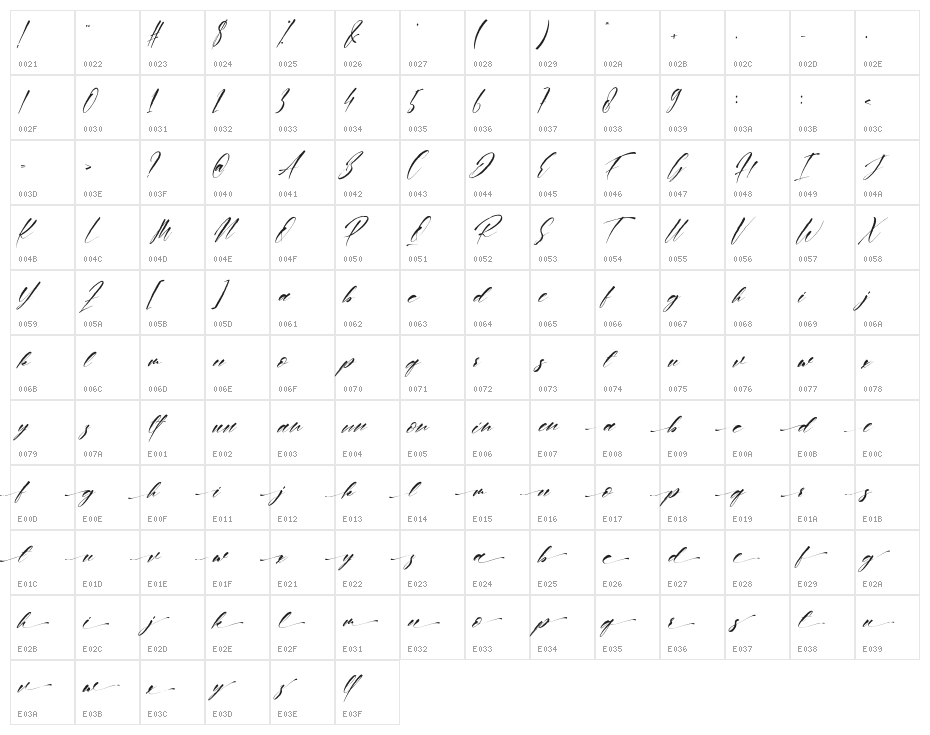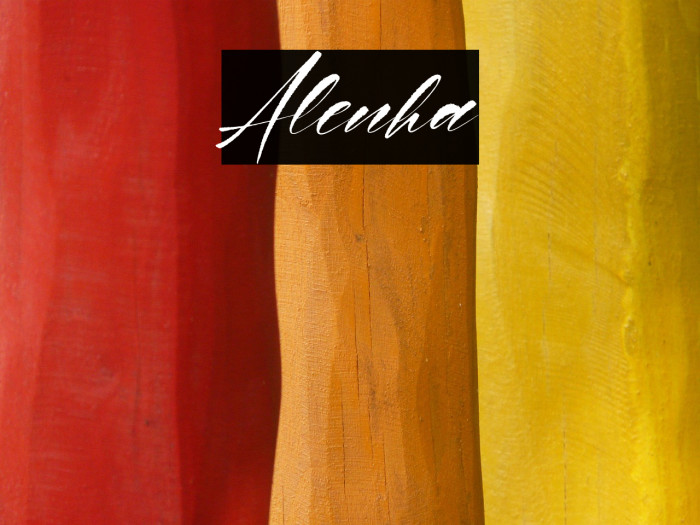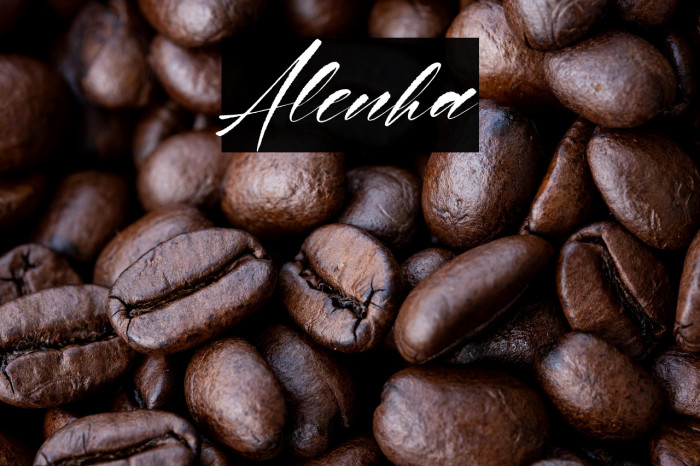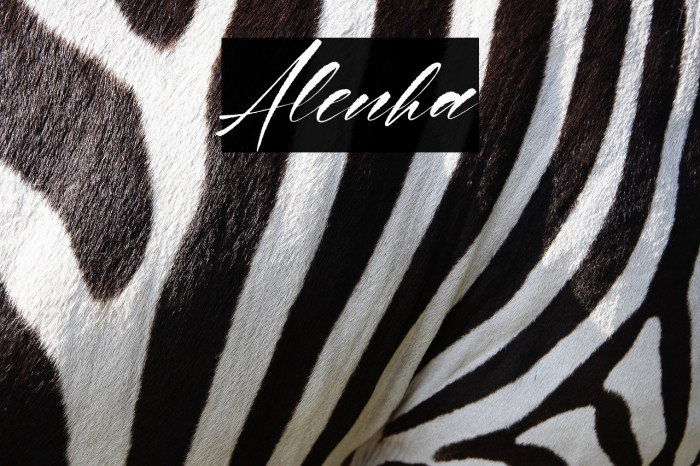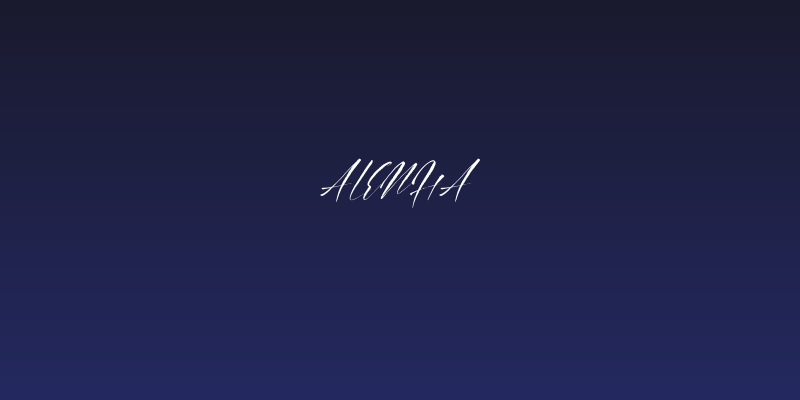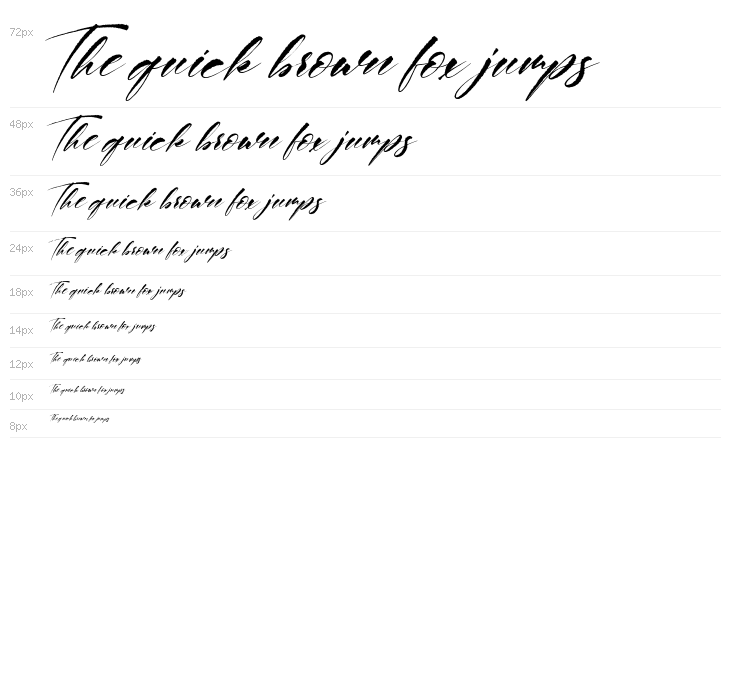
Alenha Font
Alenha Description
This font exudes a dynamic and expressive style, characterized by its fluid, cursive strokes that mimic the elegance of handwritten script. The letters are gracefully elongated with a slight slant, giving a sense of motion and fluidity. The strokes vary in thickness, adding a lively contrast that enhances its artistic flair. The uppercase letters are bold and sweeping, while the lowercase letters maintain a more delicate and refined appearance. This font captures a sense of sophistication and creativity, making it ideal for projects that require a personal touch.
| Proposed Projects | Ideal for wedding invitations, greeting cards, branding, and artistic projects that require a personal, elegant touch. |